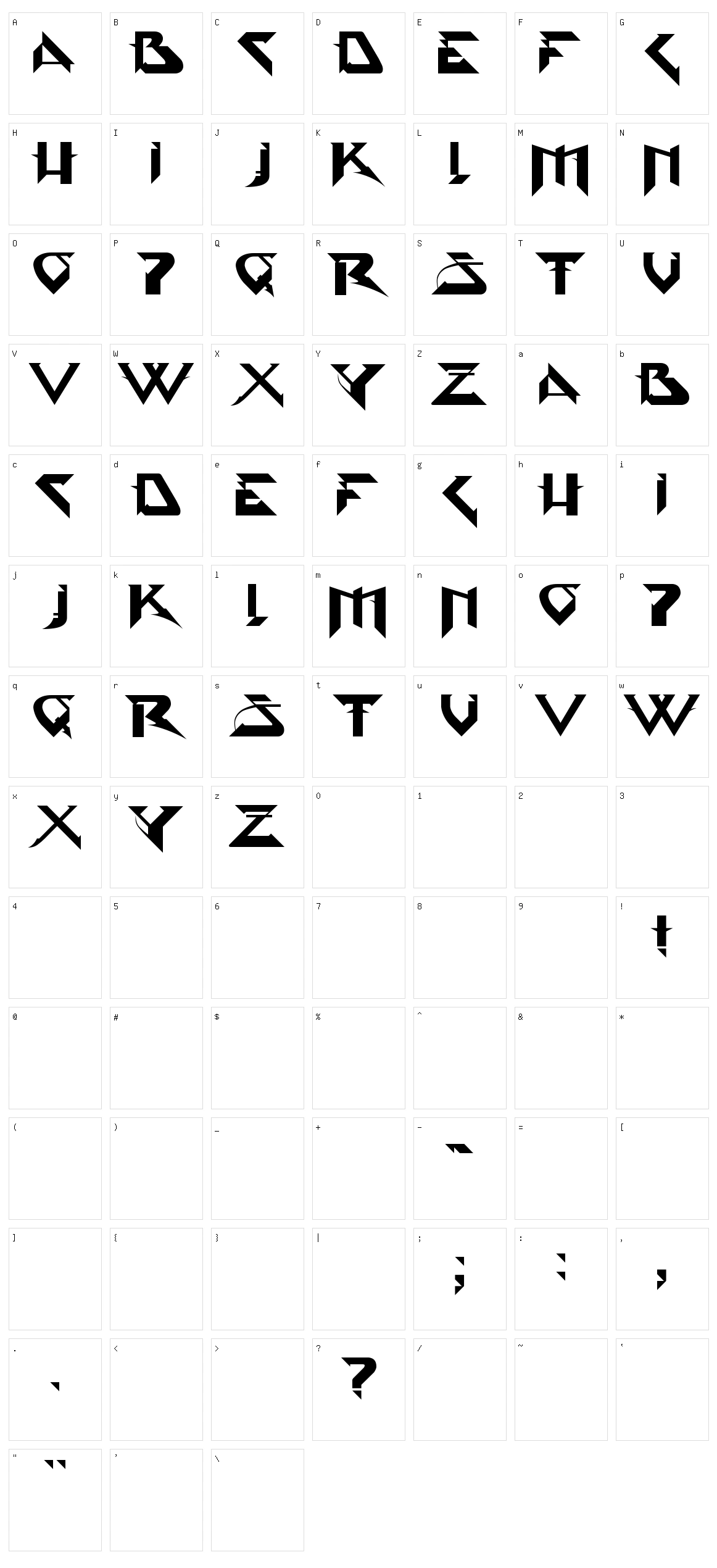
PsyType
Designed by: Kodoichi
PsyType is a TrueType font based on the Psygnosis logo done by Roger Dean. Consult your computer manual or the internet on how to install it on your system.
(c) for the letters F, J, M, Q, R, U, V and the . , ; : ! ? - " by Kodoichi.
(c) for the rest by Psygnosis, Psyclapse, Roger Dean, some demosceners.